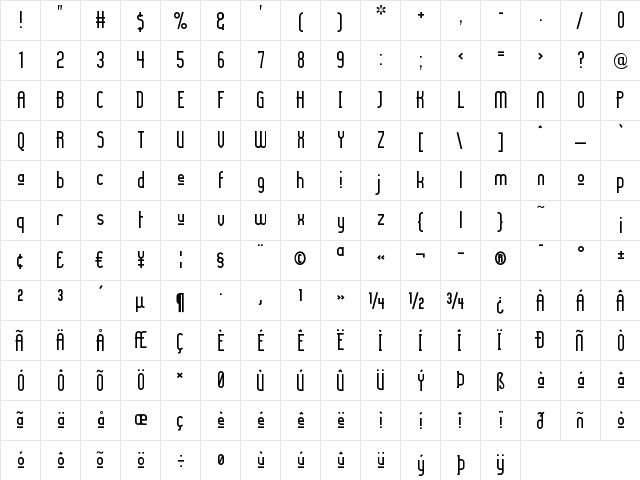
Lady Ice Revisited Upper Regular
Design Context for Lady Ice Revisited Upper Typeface
Lady Ice Revisited Upper offers clean, dependable letterforms without strong stylistic allegiance, making it a practical choice for designers who need flexibility.